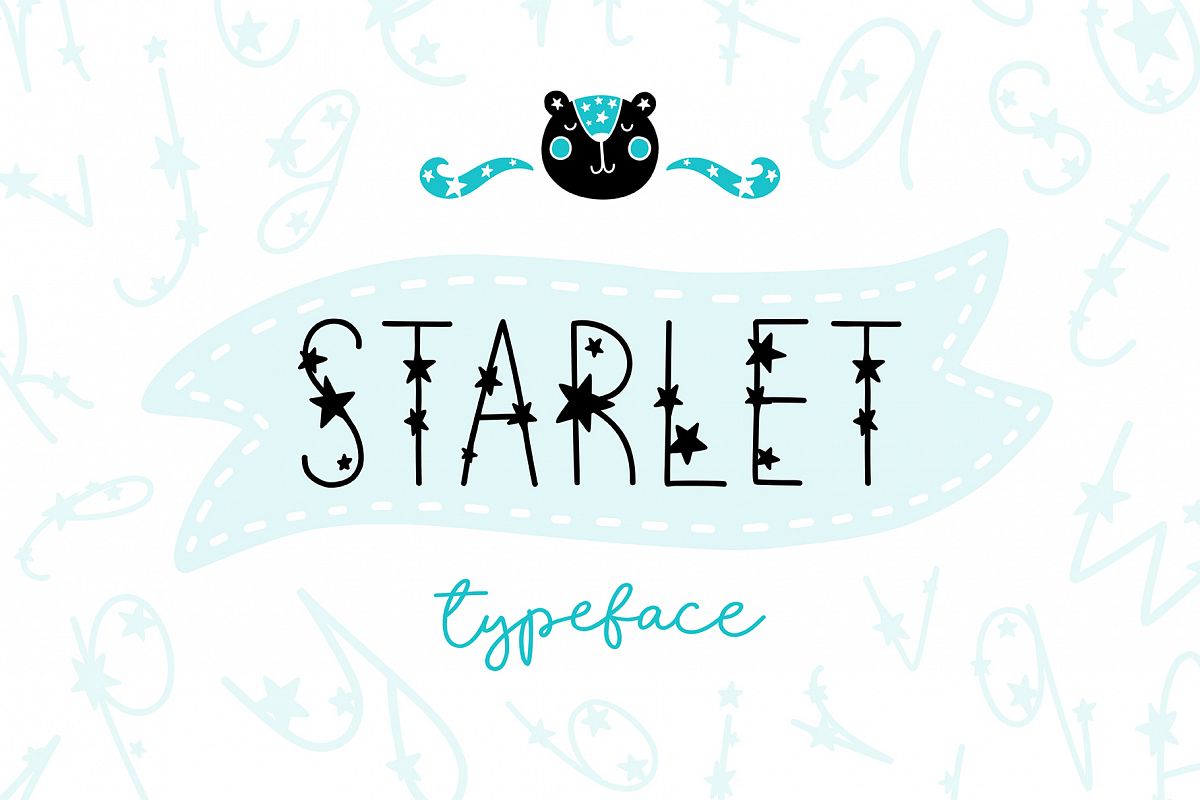
Starlet Typeface with Clipart!
♥ Starlet Typeface - Font with stars and illustrations for dreamers! ♥
This script is perfect for cards, prints, logos, invitations, arrange illustration and decoration. It has upper and lower case letters, numbers, special characters, accents. Perfect for Children!You will receive the fonts: